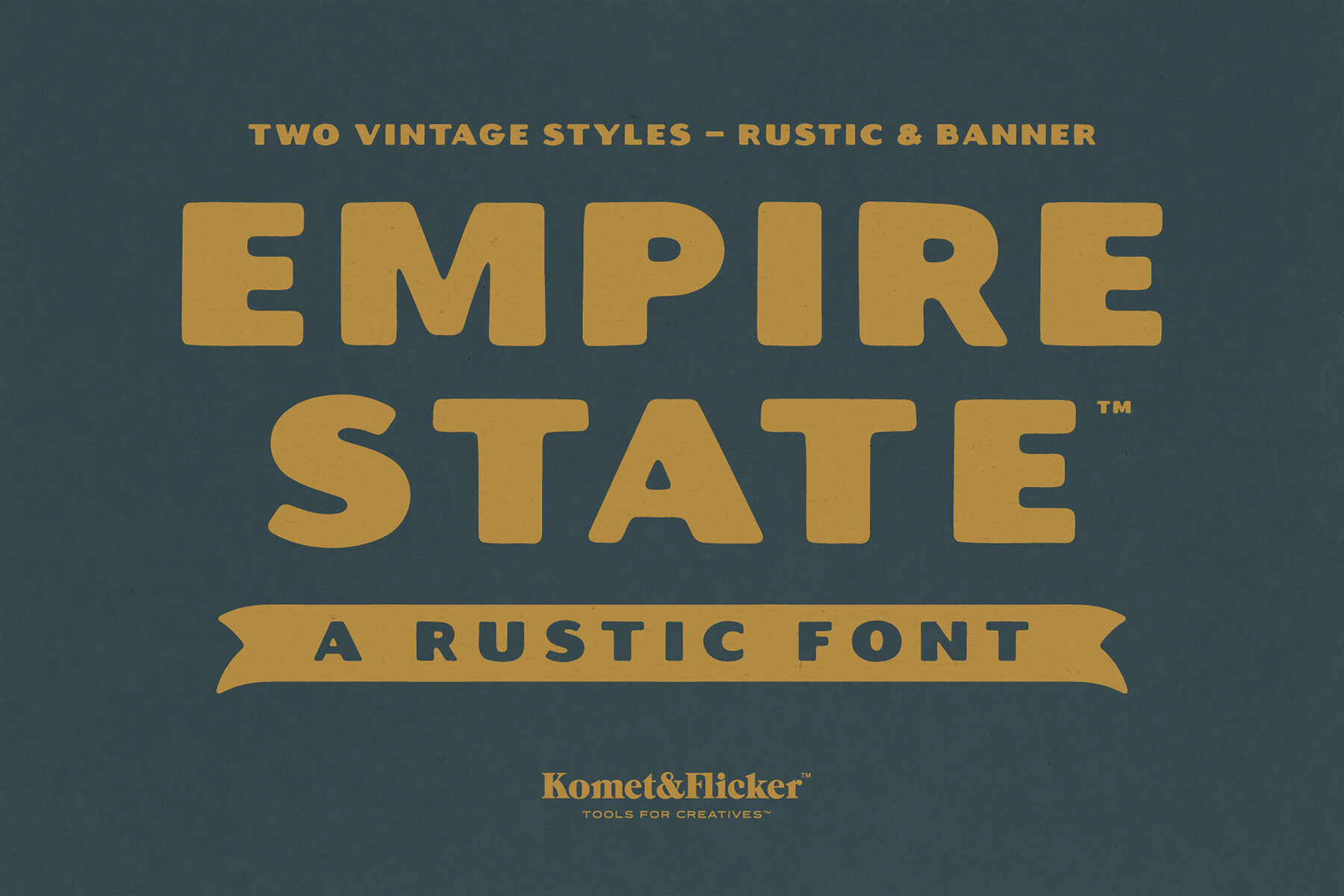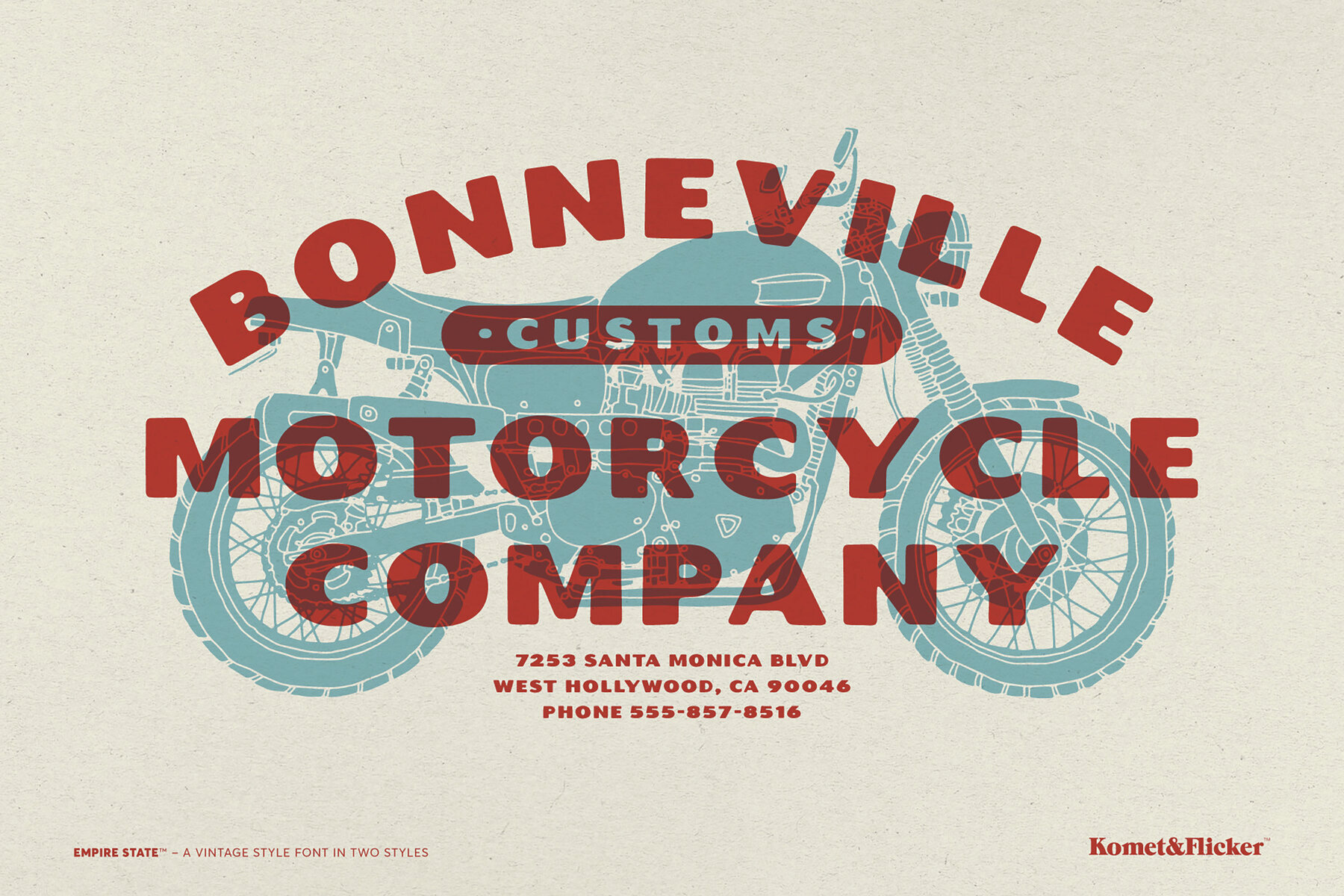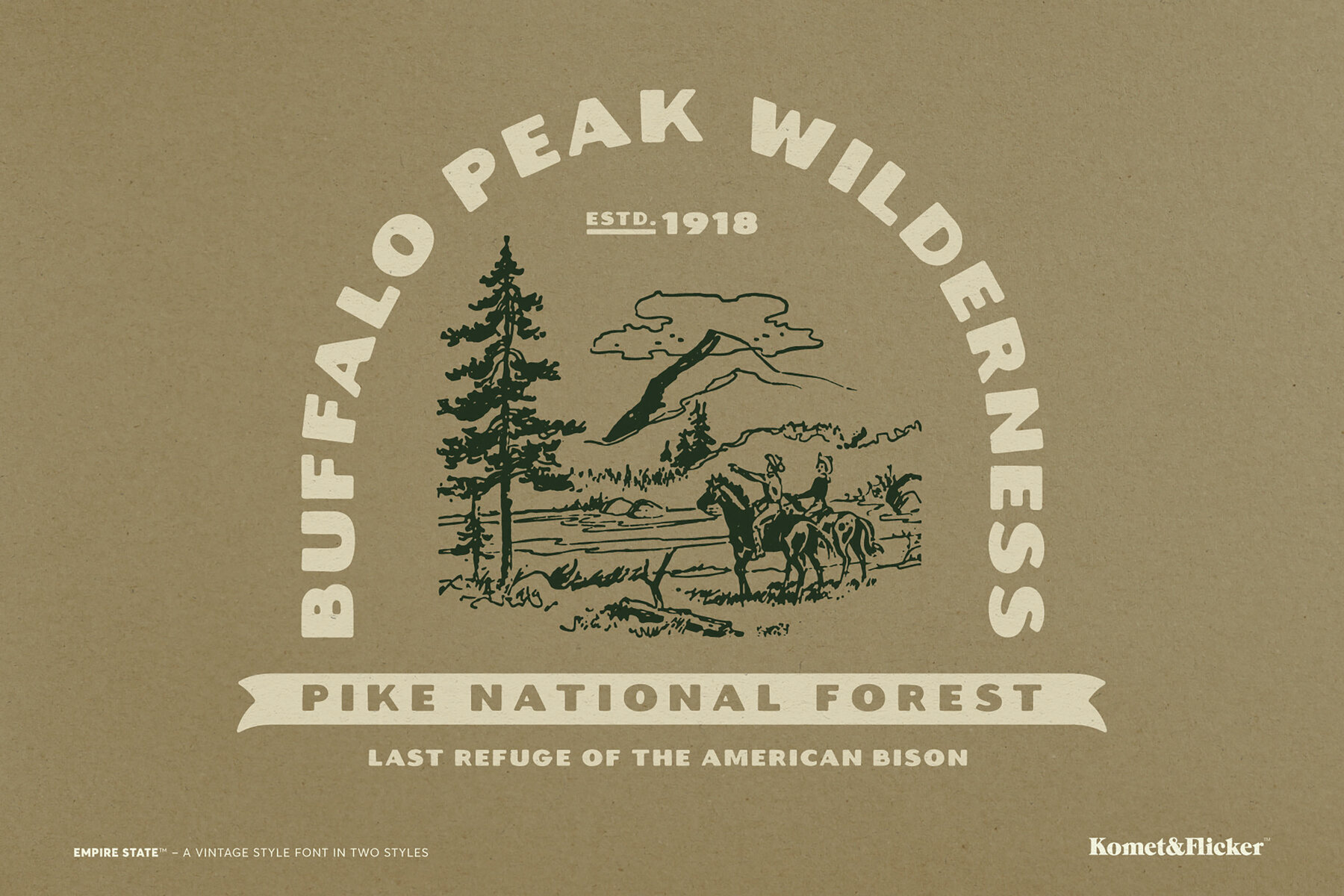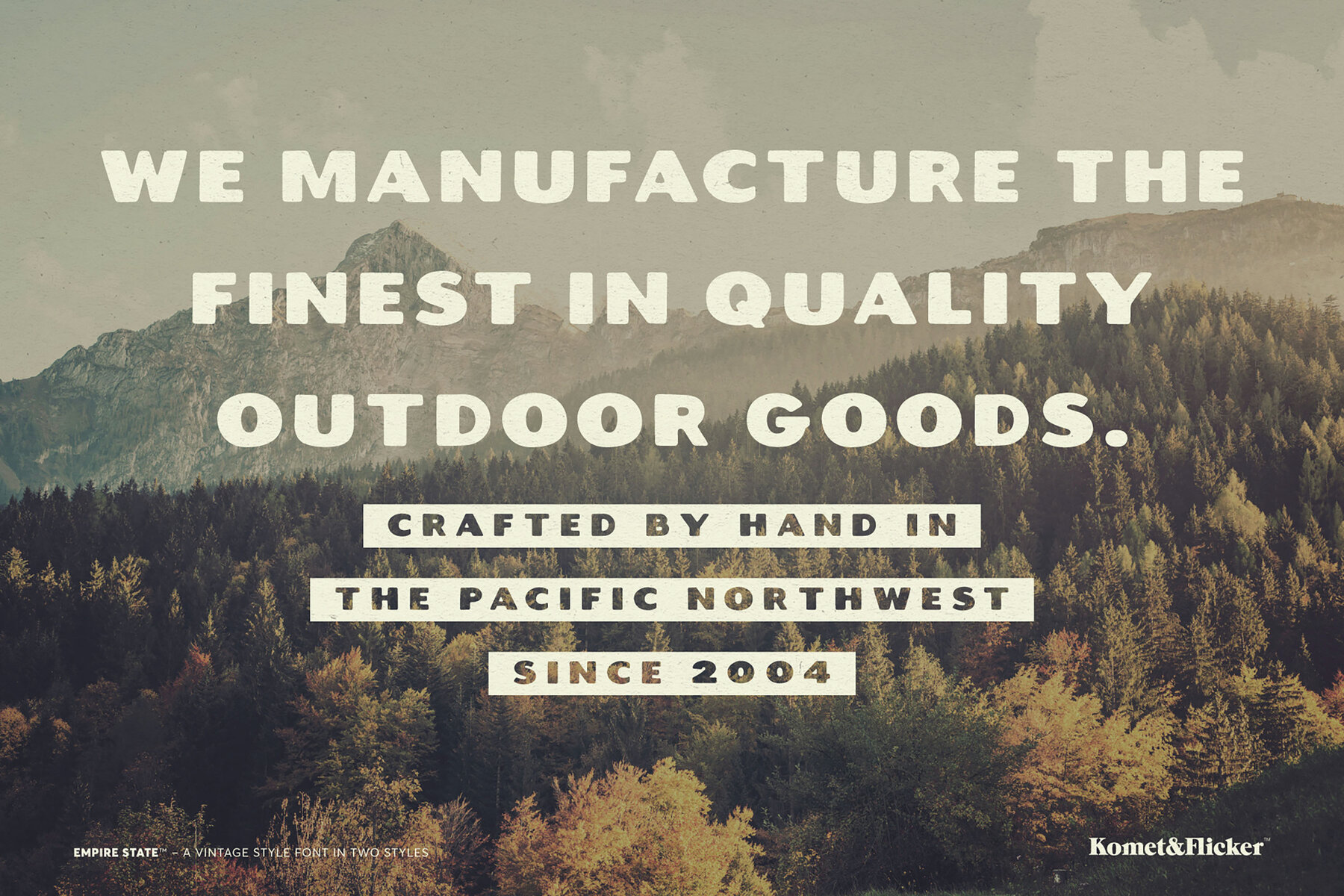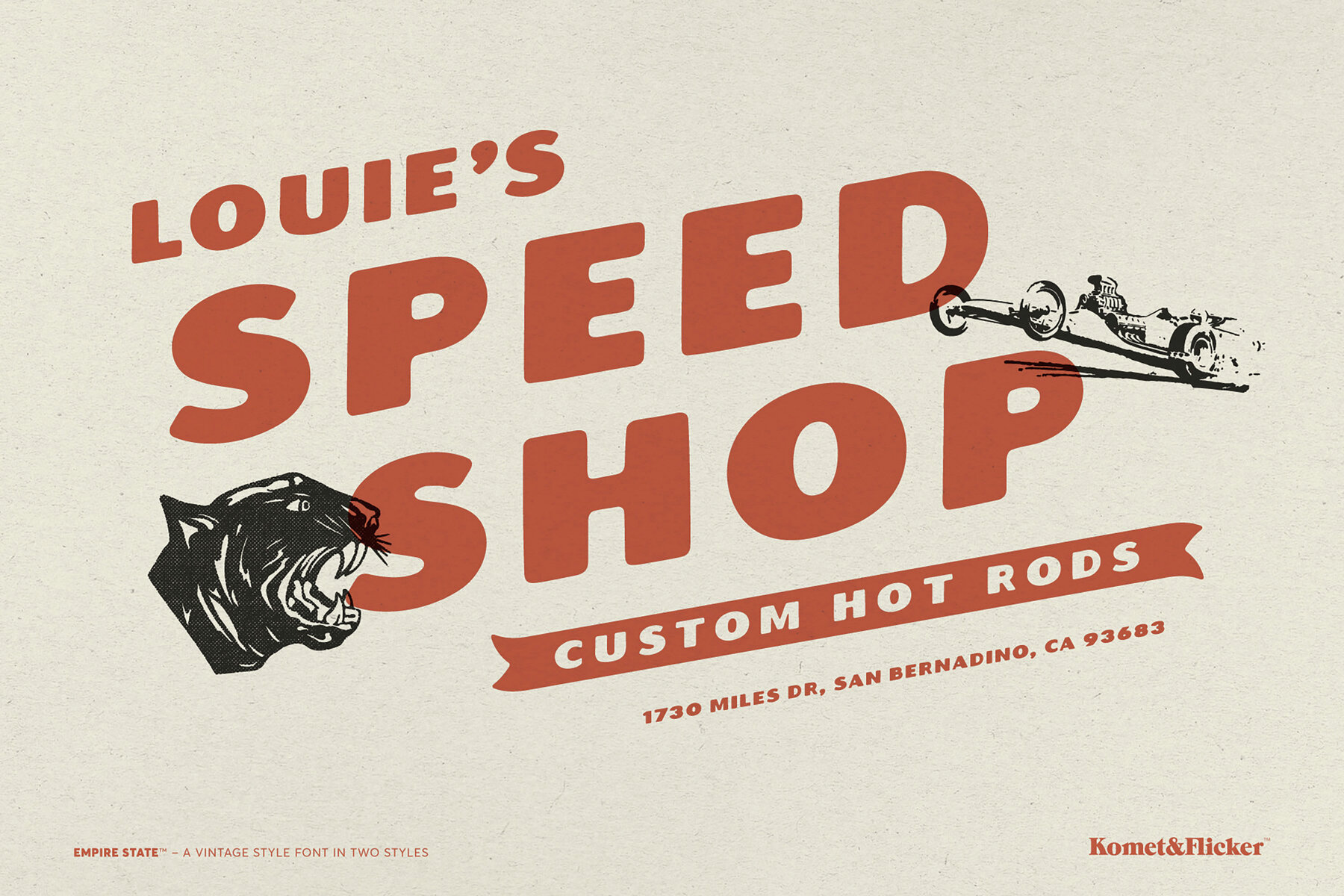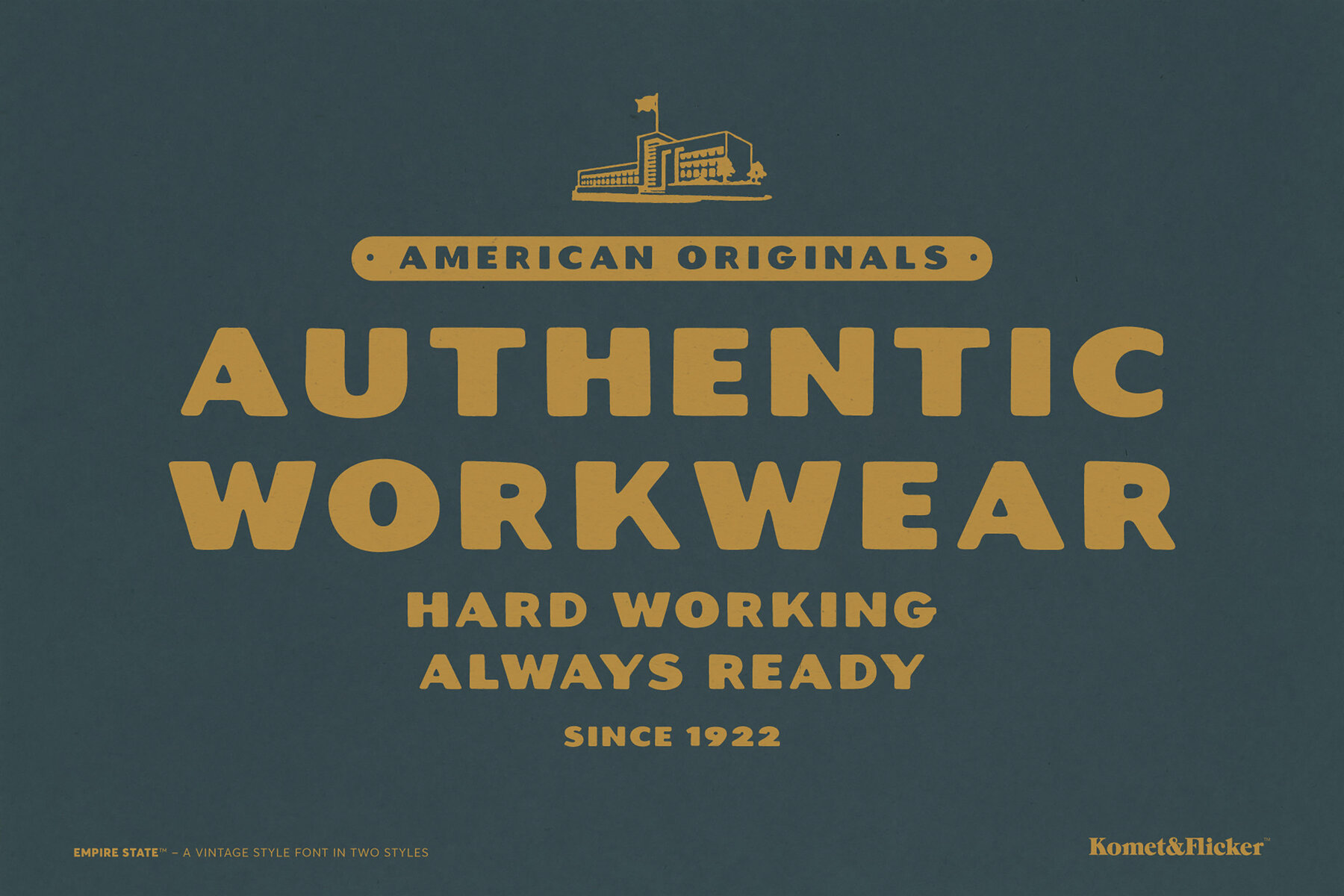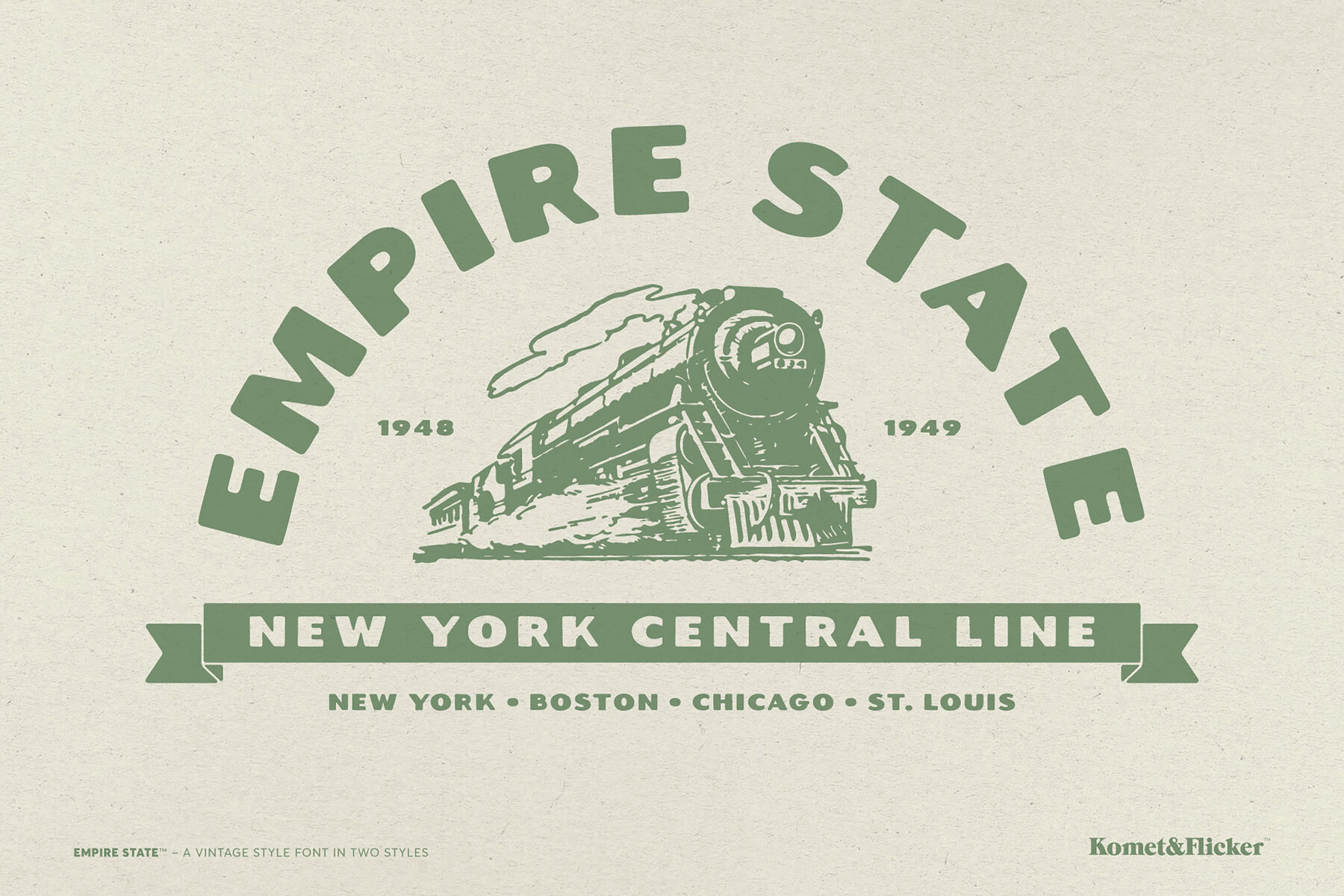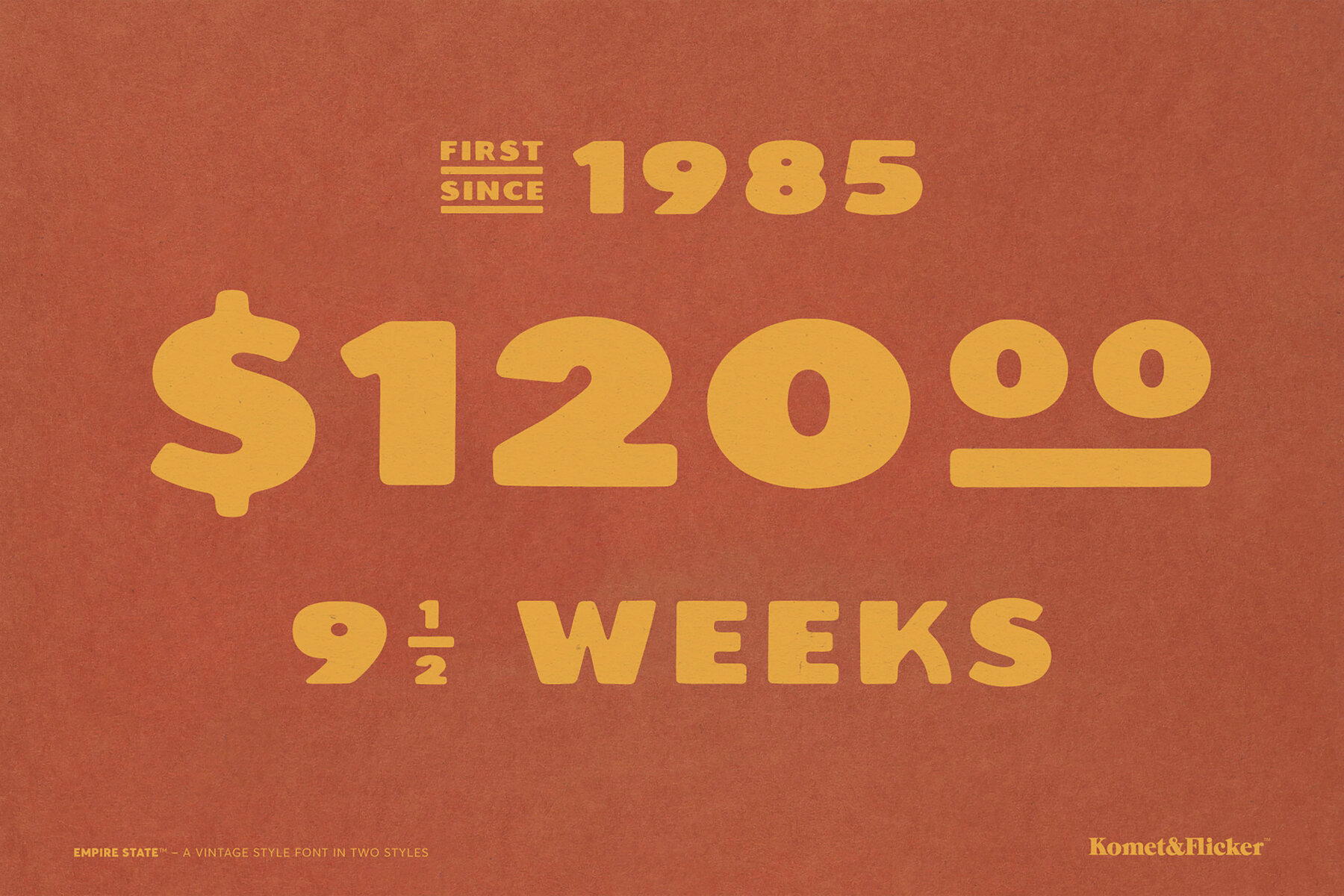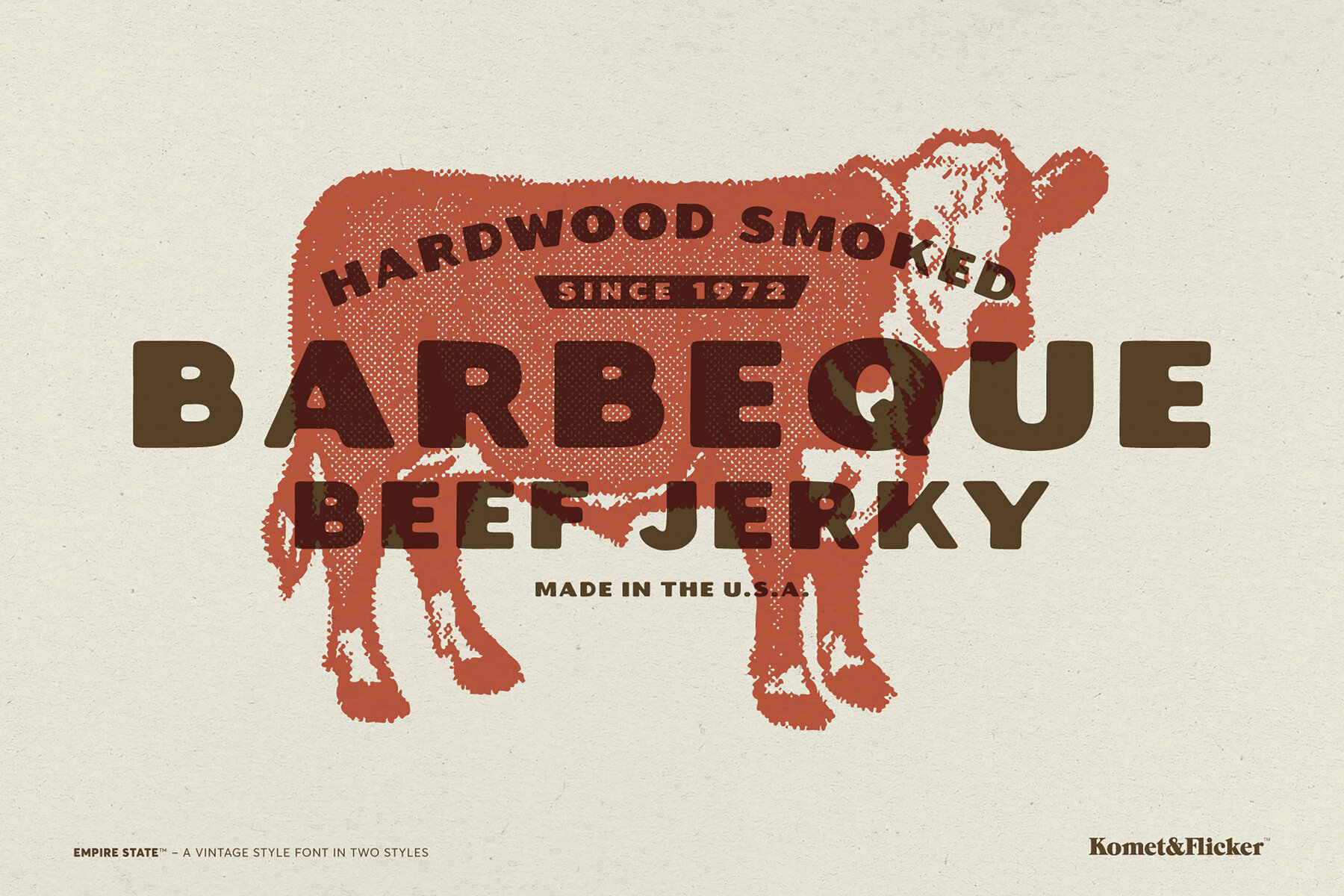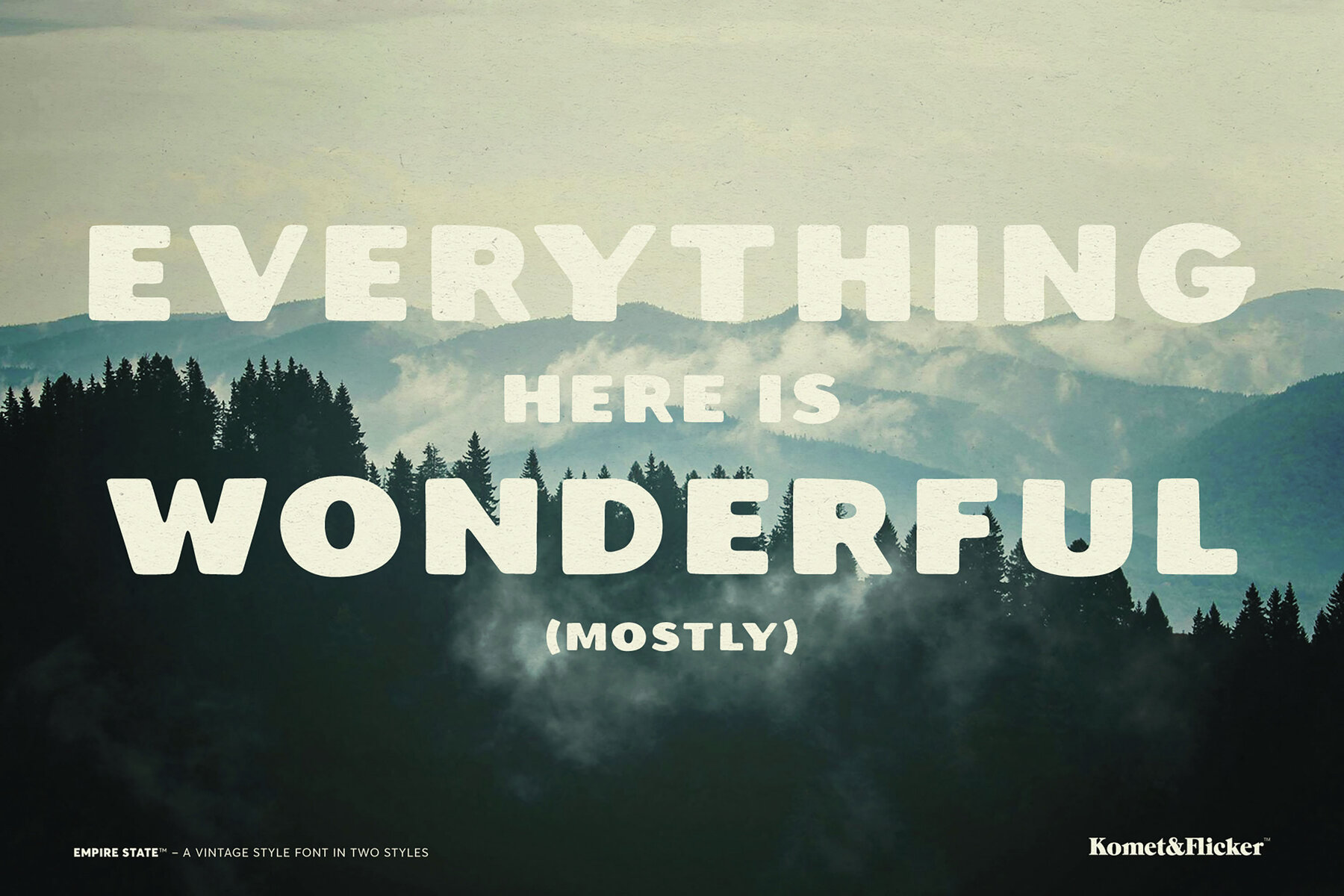
Empire State Font
Empire State Banner
Empire State Rustic
Discover a typeface that radiates nostalgia and authenticity. Empire State, a rustic and vintage-inspired all-caps font, imbues a timeless handcrafted feel into any design project. With its rugged, hand-drawn characters, this font is perfect for branding, packaging, and signage. Empire State offers two unique styles: Rustic, which evokes the worn texture of old prints and hand-painted signs, and Banner, designed to create custom text banners. These styles offer flexibility to designers aiming for a bold, personal touch in their work. In design software like Illustrator and Photoshop, extra custom glyphs are easily accessible through the 'Glyphs' panel.Empire State: Rustic Typeface with Vintage Charm